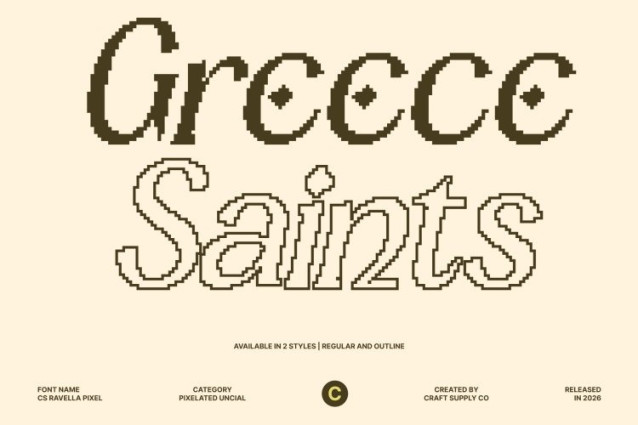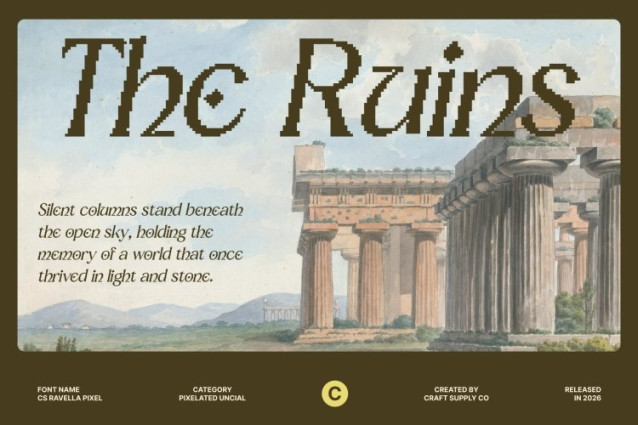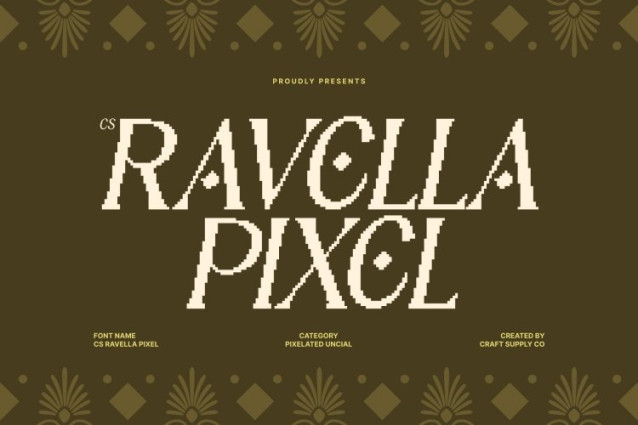
CS Ravella Pixel Font
CS Ravella Pixel Font This is an uncial-style font inspired by the timeless beauty of ancient manuscripts and early handwritten traditions. Its historical letterforms echo the rhythm and structure of classical script, reimagined through a modern pixel aesthetic. This fusion creates a unique dialogue between heritage and digital expression, allowing the past to live again in contemporary design.
Classic Elegance Rebuilt in Pixel Form
Rooted in traditional uncial shapes, this font maintains graceful curves and distinctive proportions while introducing a structured pixel construction. This contrast adds character and originality, giving the font a refined yet unconventional presence. The result is typography that feels elegant, cultured, and visually intriguing—classic in spirit, modern in execution.
Perfect for Luxury, Cultural, and Conceptual Projects
This font excels in designs that value history, storytelling, and artistic depth. It is ideal for luxury branding, cultural events, editorial layouts, packaging, book covers, and conceptual visuals. Its historic tone adds gravitas, while the pixel style introduces a subtle digital edge that makes the font stand out in modern contexts.
A Timeless Voice with Digital Character
Versatile and expressive, this font adapts beautifully to both formal and creative applications. Whether used for logos, magazine spreads, or experimental design, it delivers a sense of tradition enriched with modern identity. This font transforms historical elegance into a fresh visual language timeless, distinctive, and unforgettable.